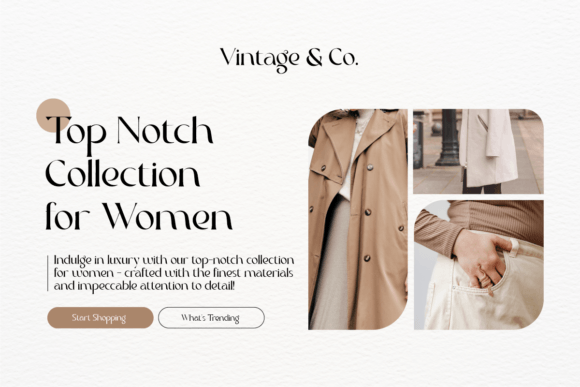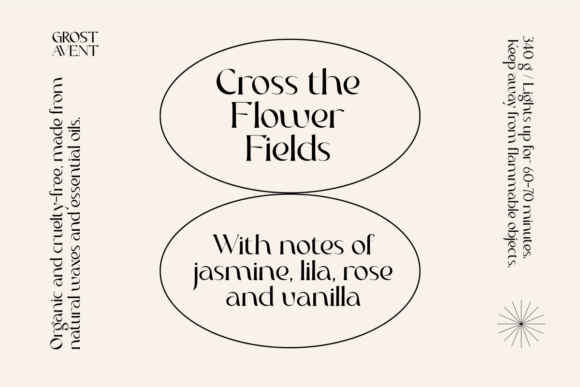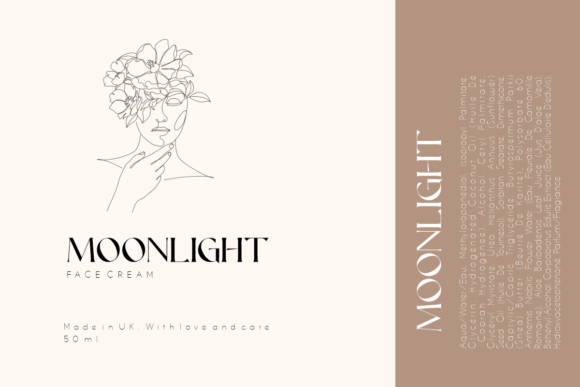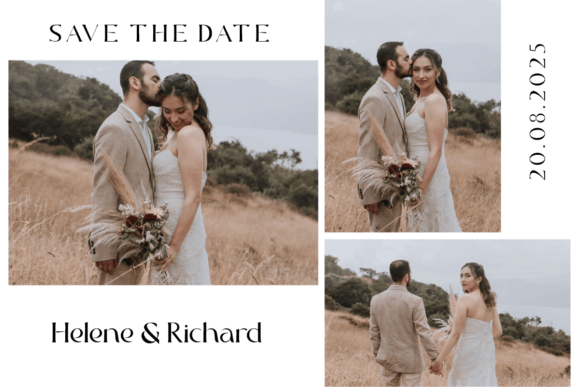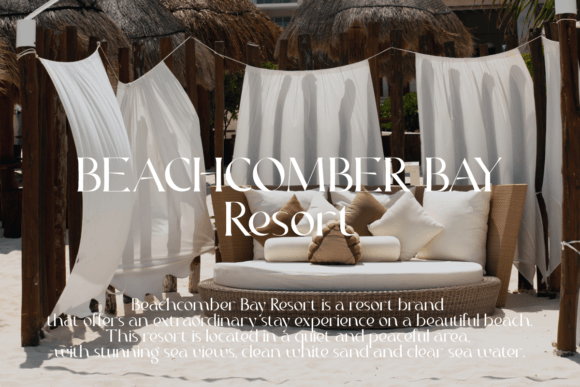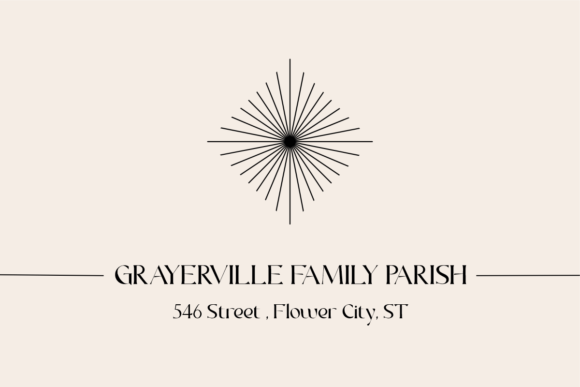
Introduction to Royal Glamour Font
Royal Glamour is a stunning and refined serif font that exudes luxury and sophistication.
With its tall and slender letterforms, delicate curves, and subtle contrast, Luminance captures the essence of elegance and elevates any project it graces Perfect for high-end branding, editorial design, and upscale packaging.
Key Features of Royal Glamour Font